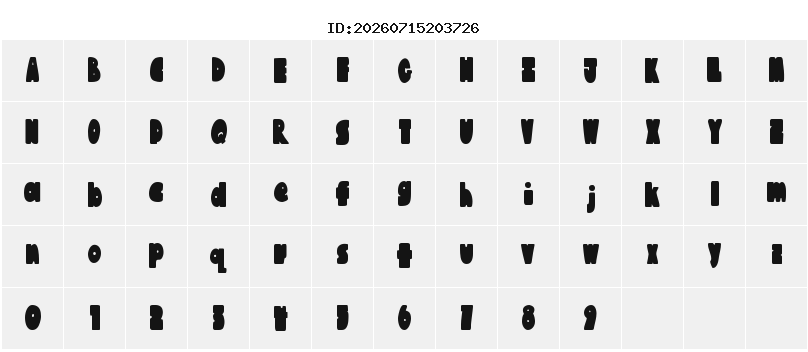
• Font Name: Austie Bost Chunkilicious Bounce
About Austie Bost Chunkilicious Bounce.ttf
Austie Bost Chunkilicious Bounce.ttf is a modern, elegant sans-serif font designed for ultimate readability and visual harmony. Perfect for branding, headlines, web design, and print materials.